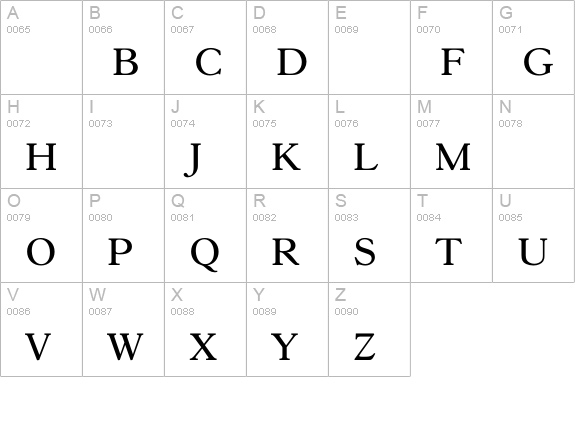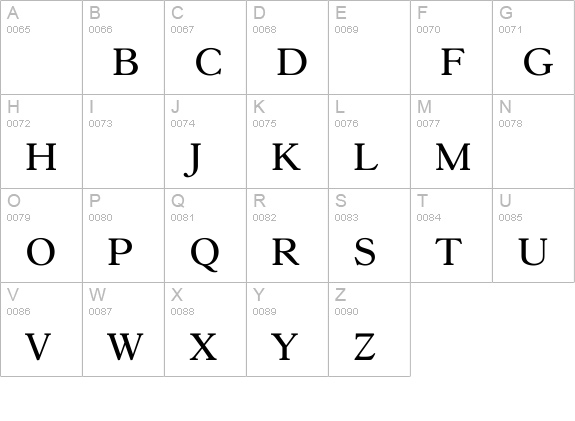
GoudY38Medium Font Details
GoudY38Medium is a timeless and versatile font that exudes elegance and sophistication. Its classic yet modern design makes it perfect for a wide range of projects, from elegant invitations to sleek branding materials. The clean lines and balanced proportions of GoudY38Medium give it a sophisticated and polished look that is sure to elevate any design. The best part? GoudY38Medium is available for free download at FontsMarket.com. This means that you can easily access and use this beautiful font in your projects without any cost. Whether you're a seasoned designer looking to add a new font to your collection or a newcomer in need of a stylish typeface, GoudY38Medium is a fantastic choice that won't break the bank. With its timeless appeal and free availability, GoudY38Medium is a must-have font for anyone looking to add a touch of elegance to their designs. Download it today and see for yourself the beauty and versatility of this stunning typeface.